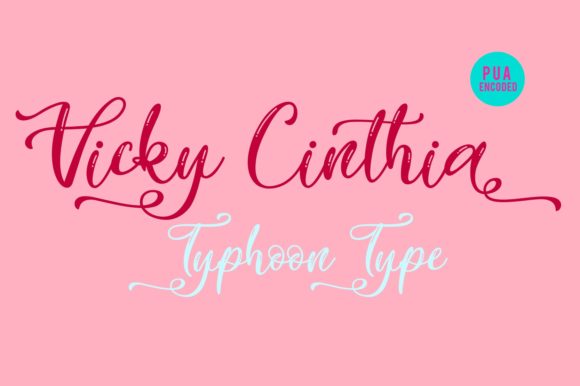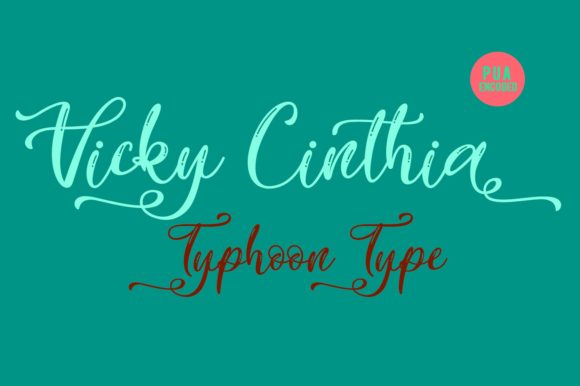
Vicky Cinthia Font
About Vicky Cinthia Font
Vicky Cinthia is a gorgeous script that’s perfect for lettering, greeting cards, invitations, wedding crafts and any project in need of an authentic and playful feel!